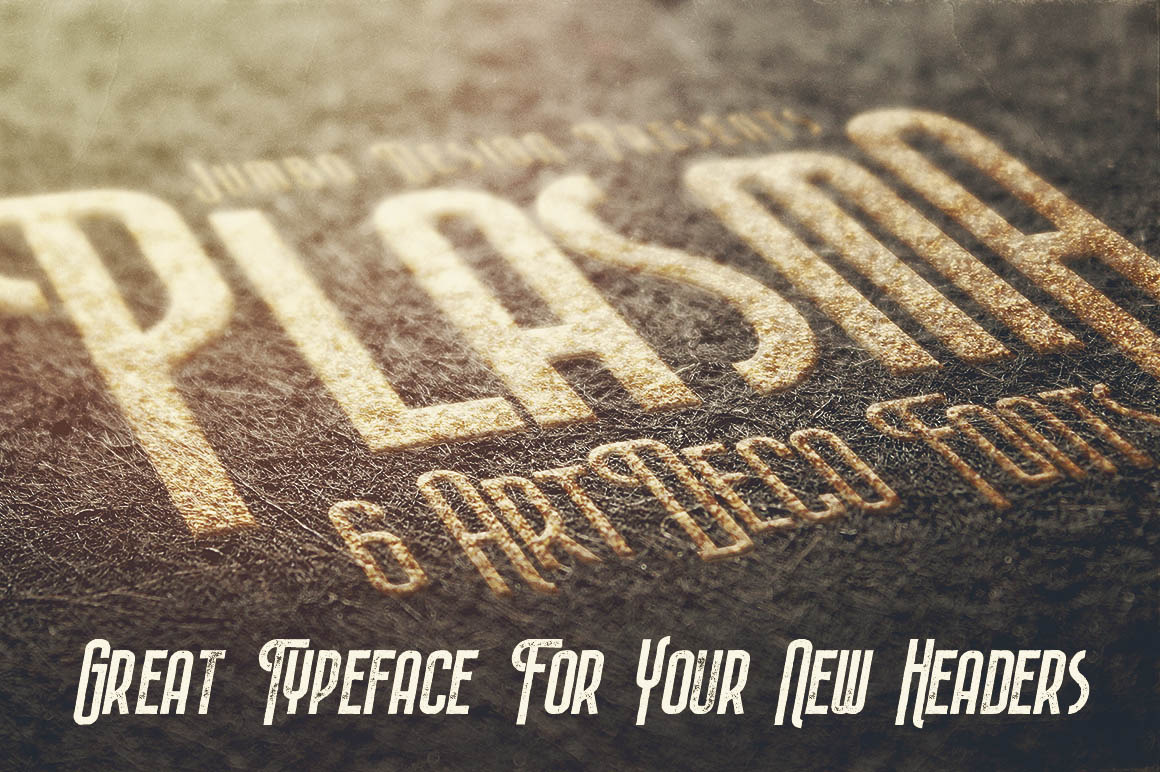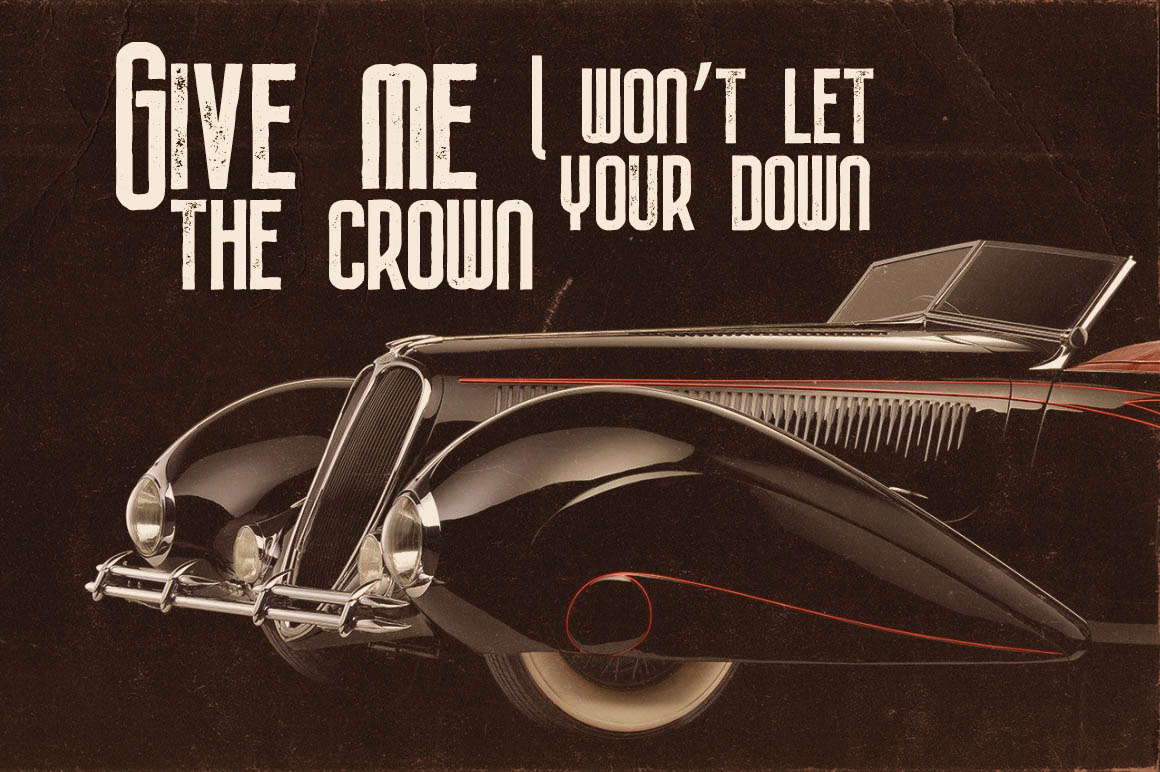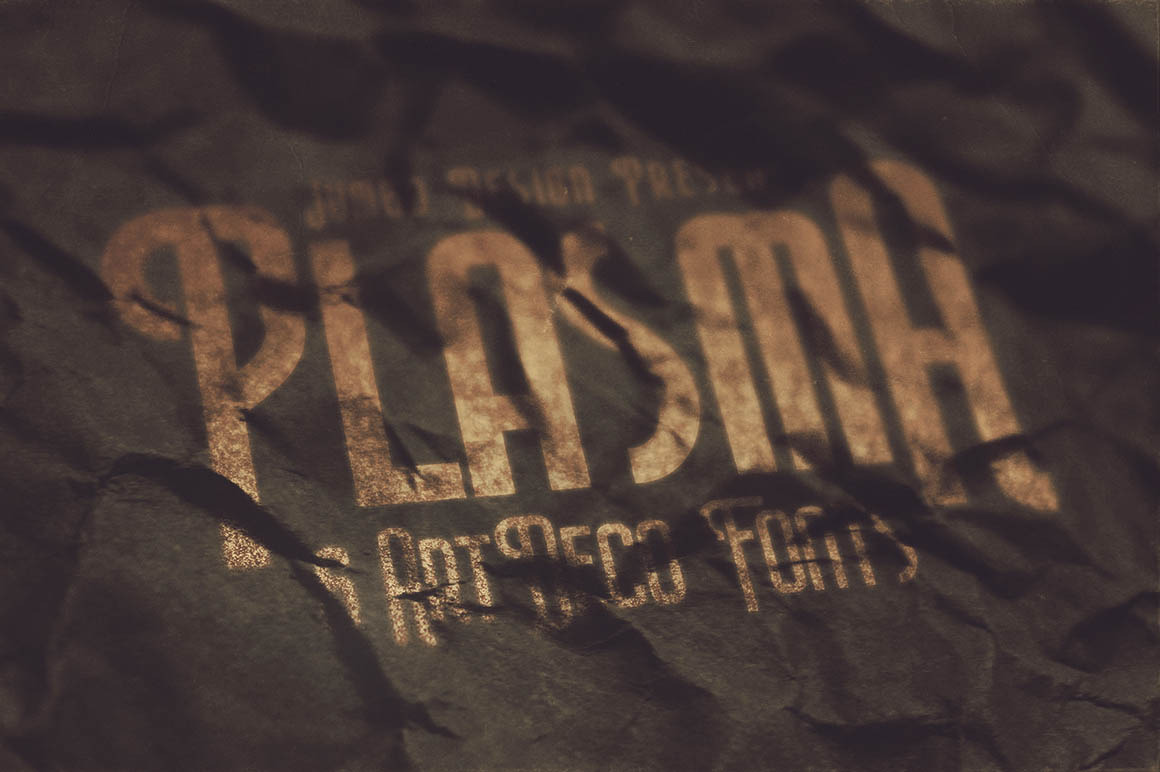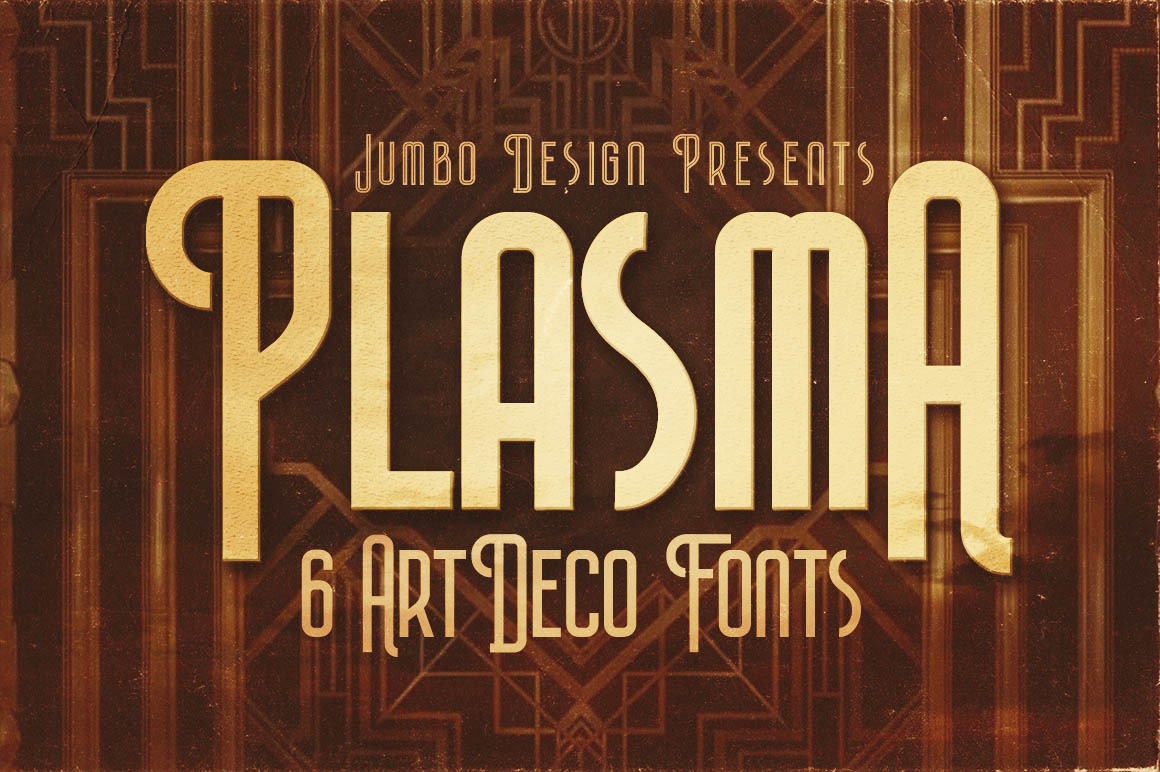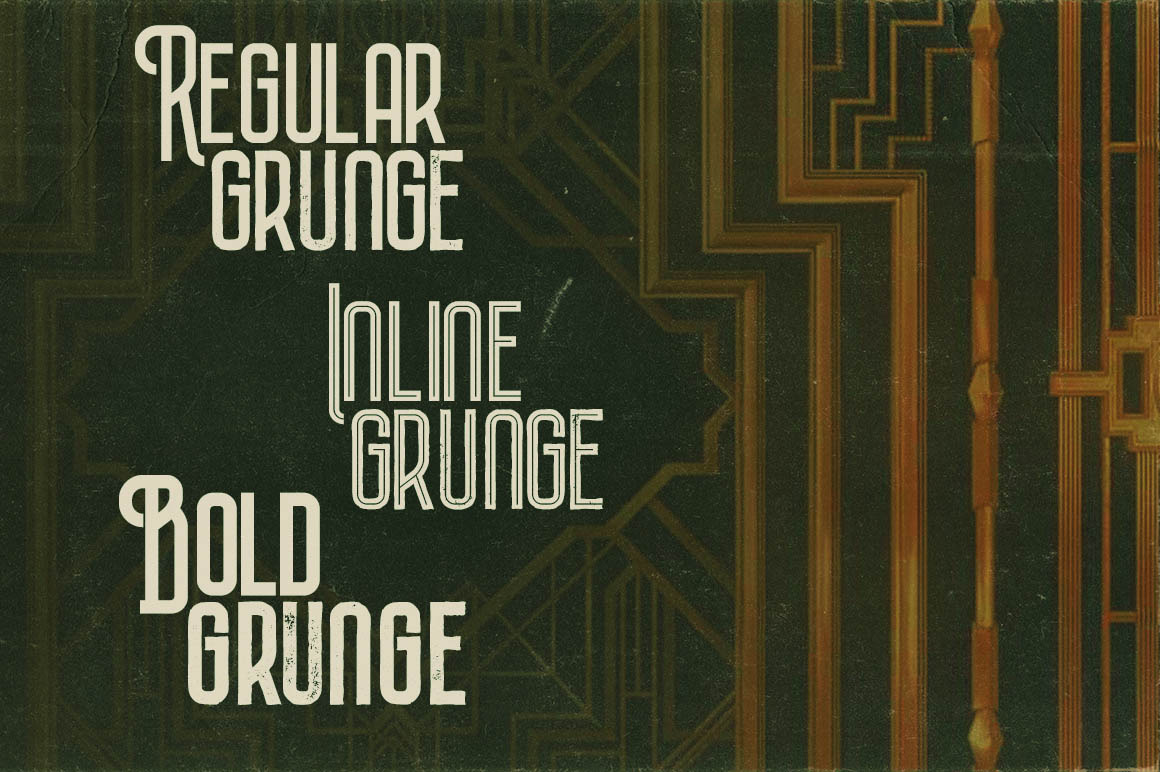
Plasma - Artdeco Style Font by Jumbodesign | Creative Market
Unique artdeco, retro or vintage style custom font with 6 styles: regular and grunge, inline and inline grunge, bold and bold grunge. - TTF, OTF formats - Download some of our designs and templates for FREE: http://dealjumbo.com/freebies/ - Freebies with extended license: http://deeezy.com/ For any help regarding this file, please feel free to contact me through my profile page! | Plasma - ArtDeco Style Font | JumboDesign